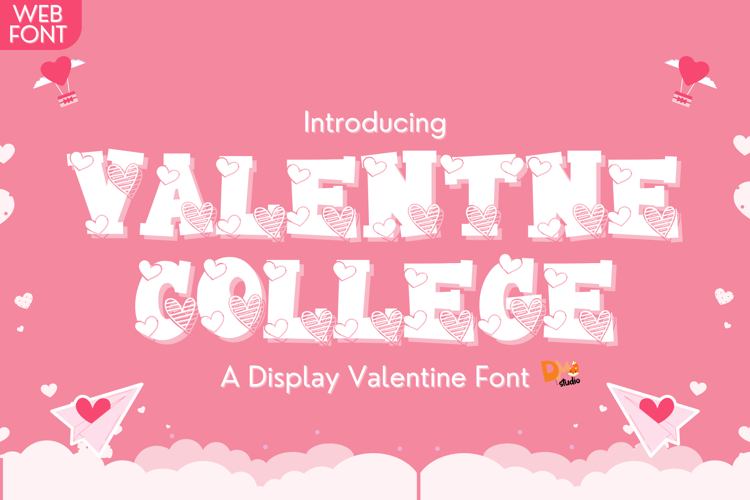
Valentine College Font - Lovely Charming Font
Valentine College Font is a bold yet elegant collegiate-style typeface with a romantic twist. Combining the strength of traditional varsity lettering with soft, charming details, this font is perfect for love-themed school projects, sports team designs, university branding, and Valentine’s Day merchandise. Whether you're designing for a college event, a heartfelt greeting, or a stylish apparel line, Valentine College Font adds a unique blend of passion and academia.
• Collegiate with a Romantic Touch: Classic varsity style infused with subtle elegance.
• Bold and Versatile Design: Perfect for both academic and love-themed designs.
• Ideal for Various Projects: Great for sports branding, school logos, Valentine's Day cards, and stylish merchandise.
• Uppercase and Lowercase Letters: Provides flexibility for different design needs.
• Punctuation and Symbols: Includes a comprehensive set for professional use.